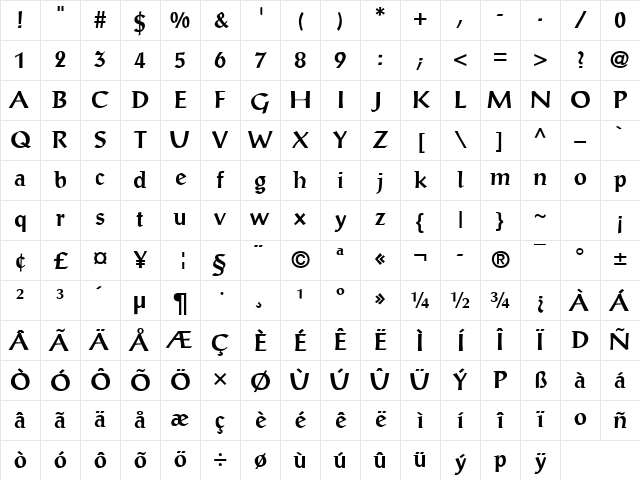
Antique Bold
Design Context for Antique
Antique wears its vintage influences proudly, with letterforms that recall mid-century signage, classic packaging, and nostalgia-driven design. Its bold stroke weight gives it real presence on the page.
Font Pairing: Combine Antique with a simple slab or neutral sans - period-accurate companions reinforce the vintage feel without competing for attention.
Pro Tip: Lean into Antique's period character by pairing it with aged paper textures, muted colour palettes, and vintage illustration styles.